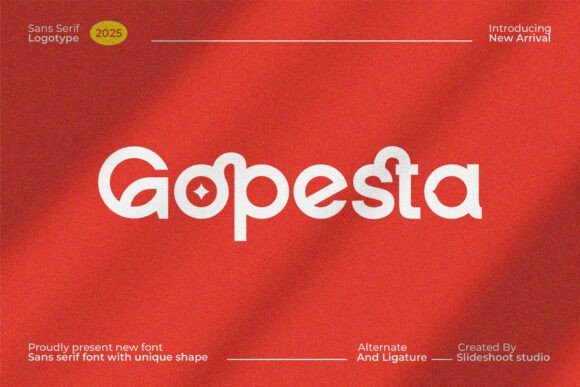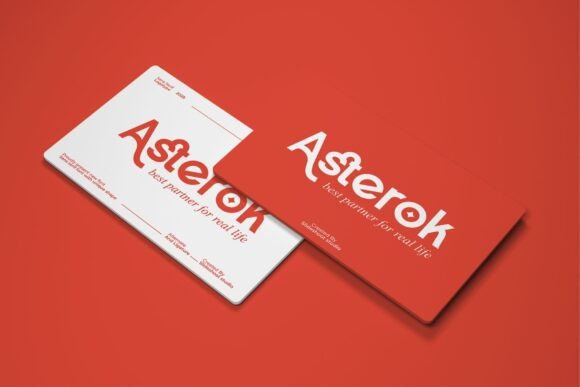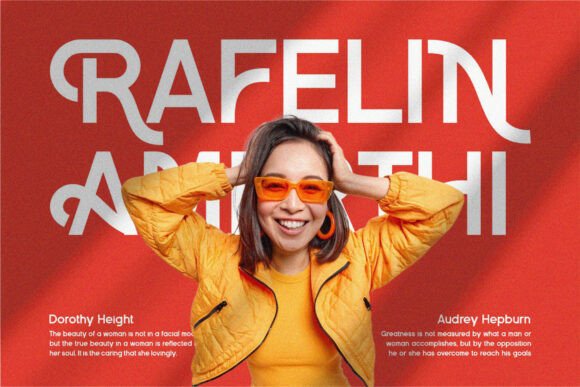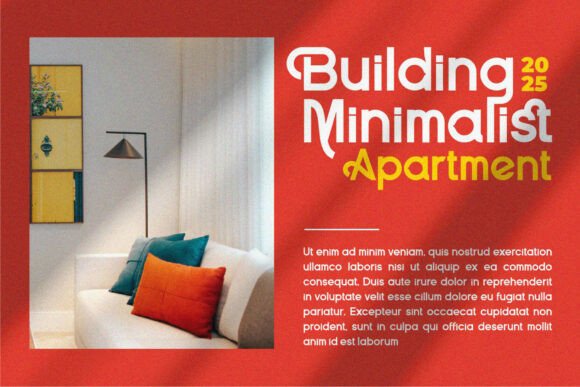
Gopesta Font: Modern Sans Serif for Cute Logo Design & Branding
About the Gopesta Font
Step up your design game with Gopesta Font, a font that exudes confidence and style. Introducing Gopesta is a modern sans serif font, trendy, bouncy and cute display font. It has a unique character with wood theme. It is perfect to be combined with invitation card designs, company logos, movie titles, movie names, business cards, book titles, brand names and various other designs.
Gopesta’s playful, bouncy nature makes it ideal for headlines, logos, and short-form text on packaging or posters where its unique character will shine. It’s less suitable for body text or UI elements; its distinctive forms would hinder readability in extended use.
Consider pairing Gopesta with a clean sans-serif like Open Sans for a balanced contrast, or a classic serif like Garamond for a touch of elegance that grounds its playful energy. A minimalist geometric sans-serif could also work well, providing a modern counterpoint to Gopesta’s more organic forms.
Gopesta projects a friendly, approachable personality, making it a strong choice for brands targeting younger demographics or projects with a lighthearted, fun tone. Avoid using it for projects requiring seriousness or formality.
Gopesta Font Usage Examples
Gopesta Font Example